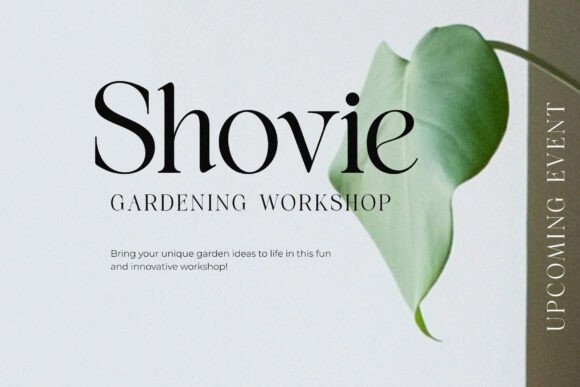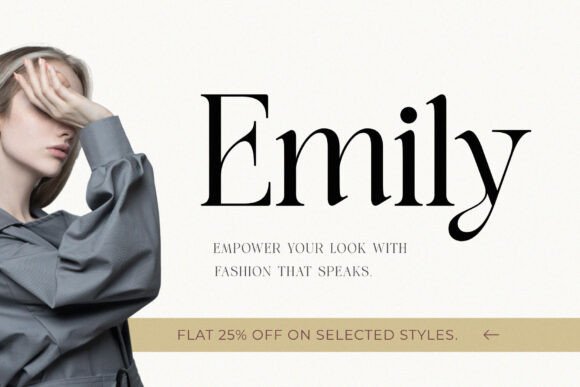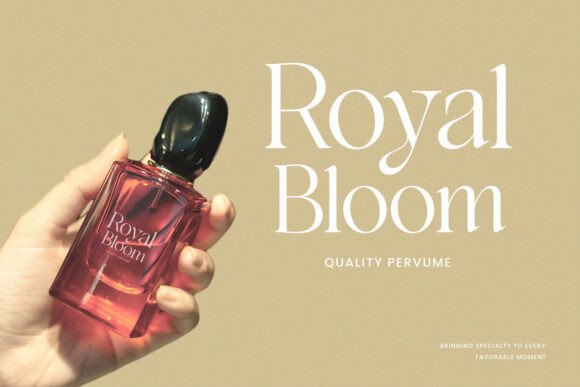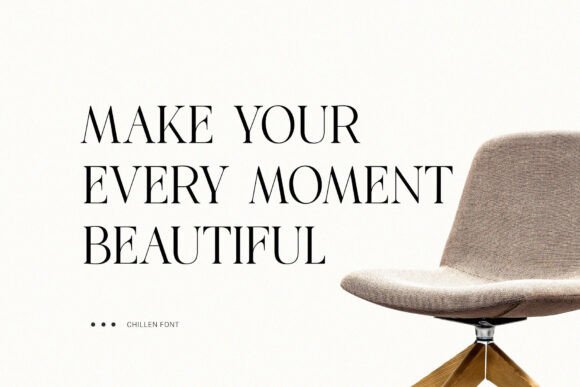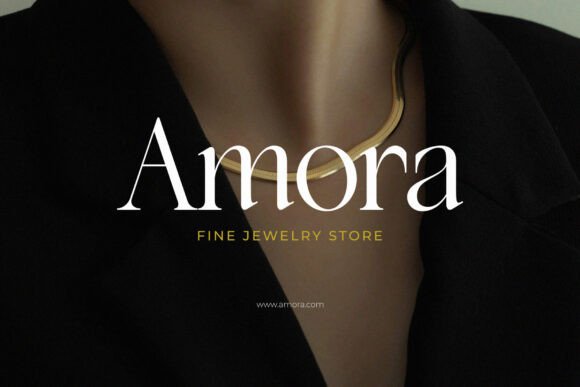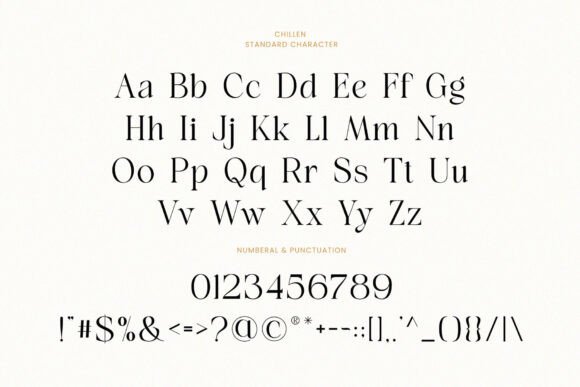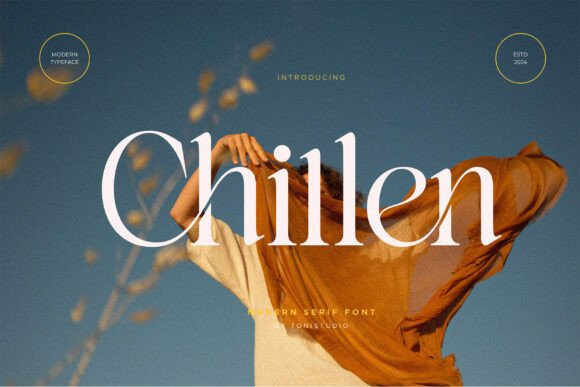
Introducing Chillen Font: The Epitome of Timeless Elegance
In the realm of typography, few fonts manage to strike a balance between classic sophistication and modern flair. Chillen Font is one such gem that effortlessly merges these seemingly disparate elements, yielding a luxurious yet highly legible typeface. Ideal for a myriad of design applications, Chillen brings an air of refinement and professionalism to any project it touches.
The Essence of Chillen Font
Chillen is characterized by its serif design, which exudes a sense of tradition and reliability. However, what sets it apart is its subtle incorporation of curved details in each character. These gentle curves add a softness and approachability to the font, preventing it from feeling too rigid or old-fashioned. The result is a typeface that feels both timeless and contemporary.
A Blend of Classic and Modern Styles
The beauty of Chillen lies in its ability to marry classic and modern styles seamlessly. The serif elements pay homage to traditional typography, evoking a sense of nostalgia and heritage. Meanwhile, the subtle curves and refined lines inject a dose of modernity, making the font versatile enough to be used in a wide range of contexts. Whether you’re crafting a brand identity, designing an invitation, or developing marketing materials, Chillen provides the perfect blend of elegance and legibility.
Suitability for Various Design Purposes
One of the standout features of Chillen Font is its versatility. Its elegant and sophisticated design makes it suitable for various purposes, including:
- Branding: Establish your brand’s identity with a font that communicates luxury, sophistication, and professionalism.
- Logos: Create a lasting impression with a logo that utilizes Chillen’s unique blend of classic and modern elements.
- Invitations: Add an air of elegance to your invitations, making them perfect for weddings, galas, and other formal events.
- Marketing Designs: Elevate your marketing materials with a font that captures attention and conveys a sense of refinement.
Enhancing Professionalism and Visual Appeal
Incorporating Chillen Font into your designs can significantly enhance their professionalism and visual appeal. The font’s elegant touch can transform even the most mundane design elements into something that feels premium and high-end. This is particularly beneficial for businesses and individuals looking to establish a strong brand presence or make a lasting impression on their audience.
To make the most of Chillen Font, consider the following tips:
- Pair with Complementary Fonts: Combine Chillen with sans-serif fonts for contrast or with other serif fonts for a layered look.
- Experiment with Sizes: Play with different font sizes to create visual hierarchy and emphasis in your designs.
- Utilize Color Strategically: Choose colors that complement the elegance of Chillen, such as muted tones, rich jewel tones, or classic black and white.
| Font Name | Chillen Font |
| Author | ToniStudio |
Chillen Font stands as a testament to the power of typography in design. Its unique blend of classic elegance and modern sophistication makes it an invaluable asset for designers and crafters seeking to elevate their projects. Whether you’re aiming to create a luxurious brand identity, craft beautiful invitations, or develop compelling marketing materials, Chillen is the perfect choice. Embrace the timeless elegance of Chillen Font and witness the transformation of your designs into visually stunning and professionally crafted pieces.